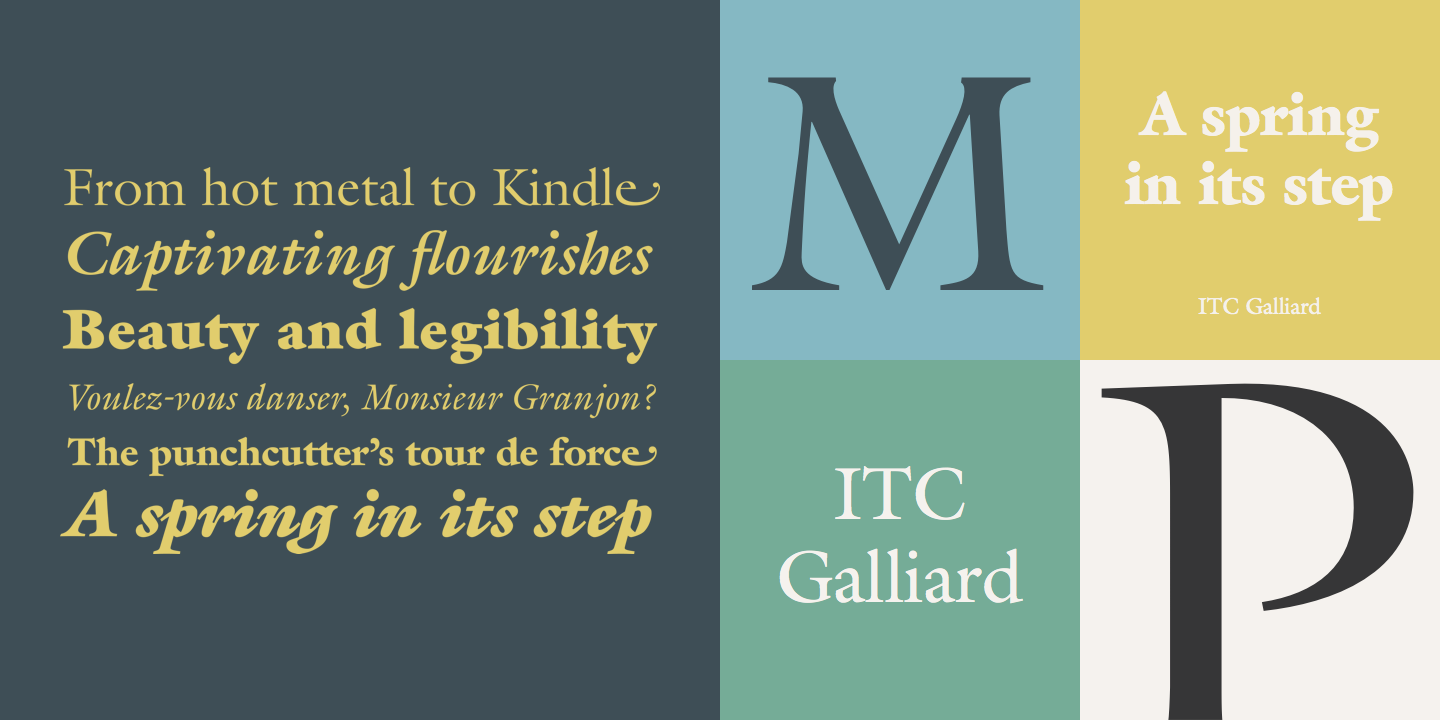
ITC Galliard Font is perfect for elegant book publishing, classical literature reprints, fine art publications, prestigious university materials, cultural institution branding, and sophisticated editorial design. Its distinguished character makes it ideal for academic presses, literary journals, art galleries, classical music venues, and any application requiring refined typography that conveys scholarly excellence, artistic sophistication, and timeless literary elegance.
ITC Galliard Font is exciting because it captures the spirited elegance of Renaissance calligraphy through gracefully crafted letterforms that dance with typographic vivacity and scholarly charm. Its distinctive character and humanist proportions reflect the artistic brilliance of 16th-century French typography while offering enhanced readability for contemporary applications. The font's gallant spirit makes it perfect for organizations seeking to convey intellectual refinement and cultural sophistication.
ITC Galliard Font family includes scholarly weight variations typically featuring Roman, Italic, Bold, and Bold Italic options with classical proportions and traditional typographic features. The family often incorporates old-style numerals, small capitals, and extensive ligatures that honor Renaissance printing traditions, providing designers with authentic tools for creating elegant, academically-inspired typographic compositions.